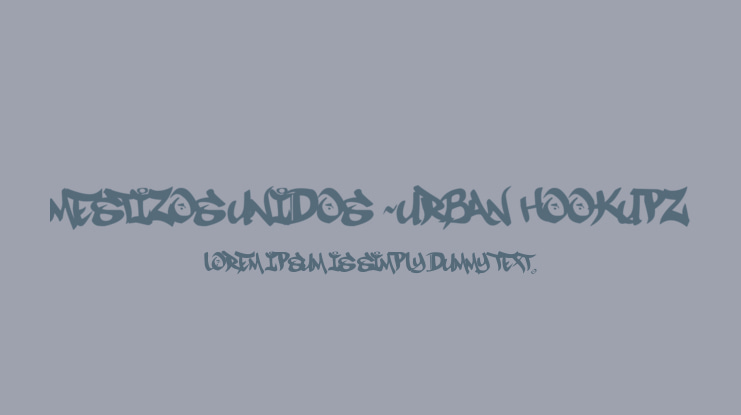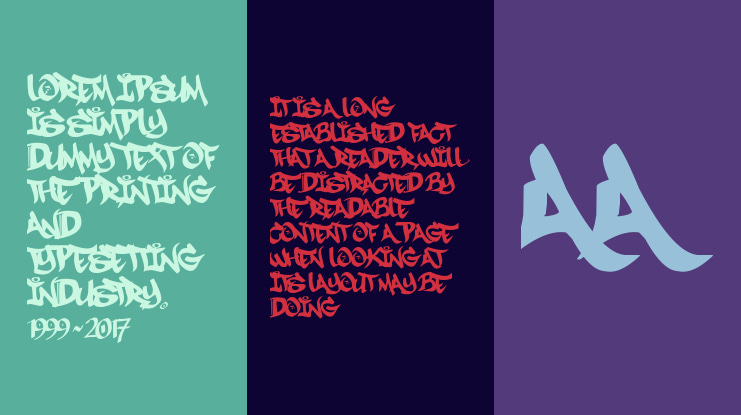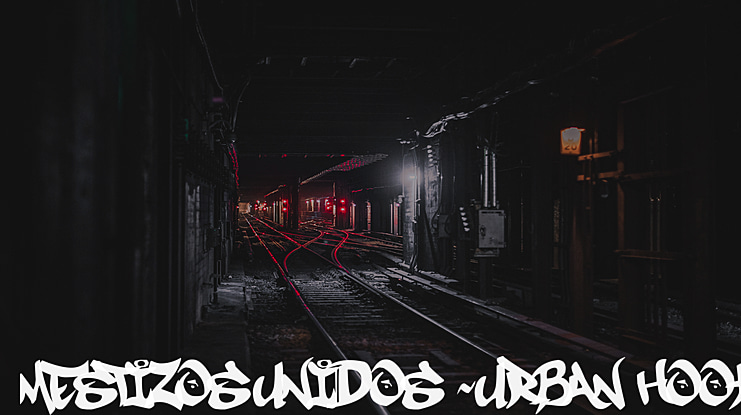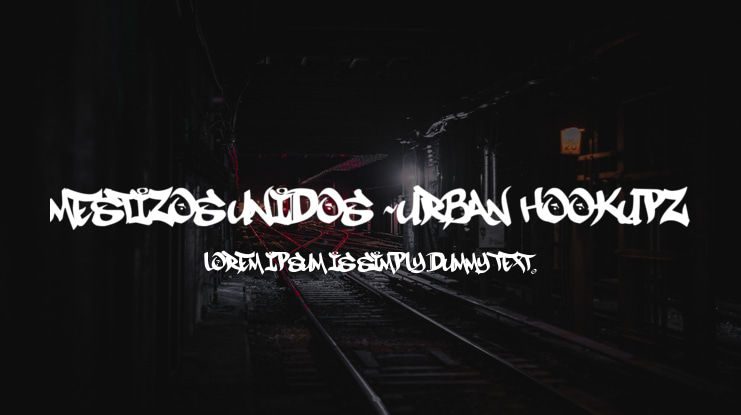
MESTIZOS UNIDOS -URBAN HOOKUPZ Font
" MESTIZOS UNIDOS Font: Mestizo: From the Iberian lands to the Americas and various islands like the Philippines; What a beautiful blend. This font is a mixed style.   The flow of the letters mixed and blended well like the mixture of the Mestizo people. I am humbly happy to claim that I am a Mestizo. I call it, "Mestizos Unidos" for the remembrance of our wonderful heritage and a flow of A Script, that mixes well. Note: This font was inspired by a previous free Graffiti  font;  By one of the best Graffiti Font Creators, "Ras ONE" .